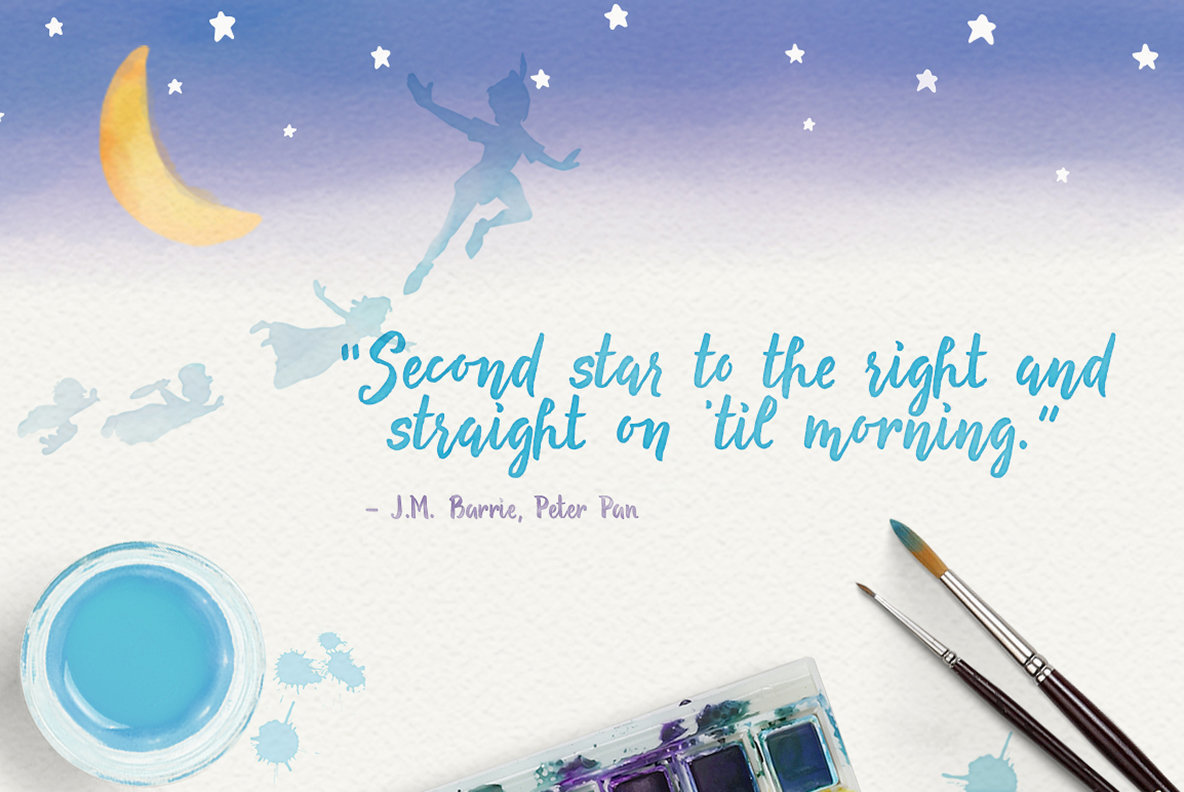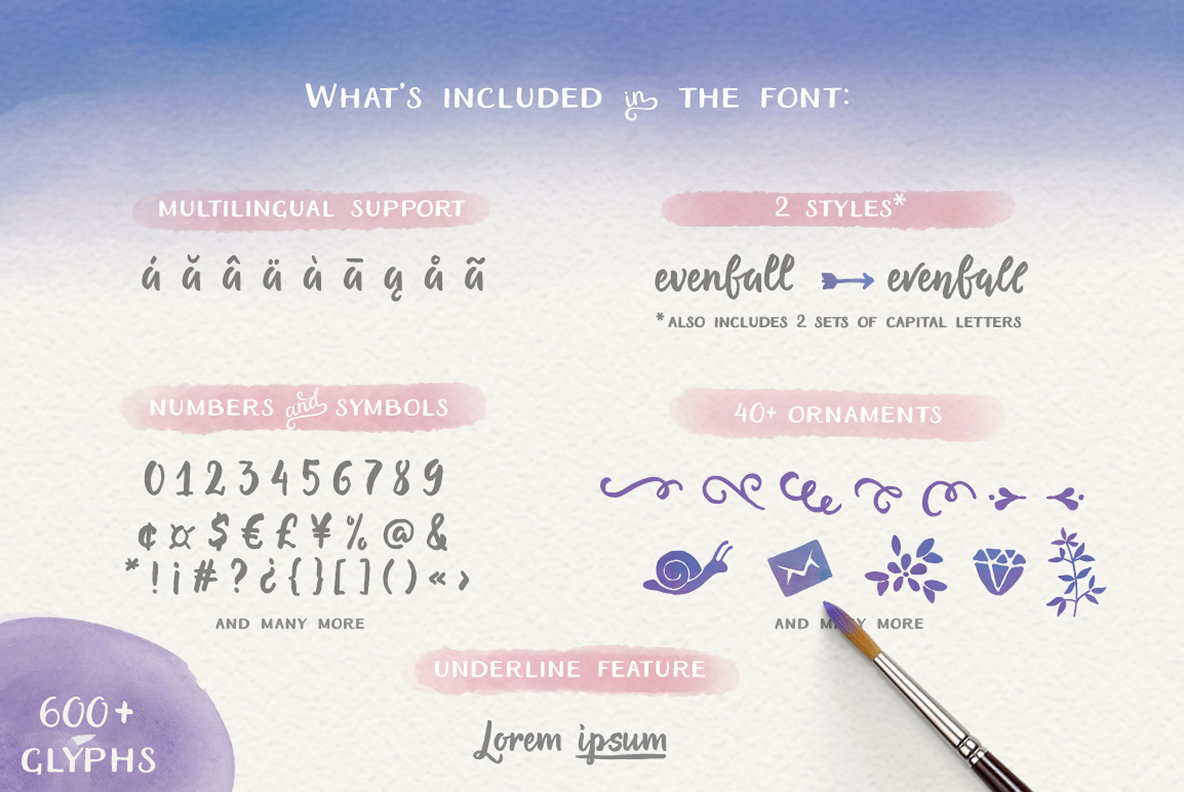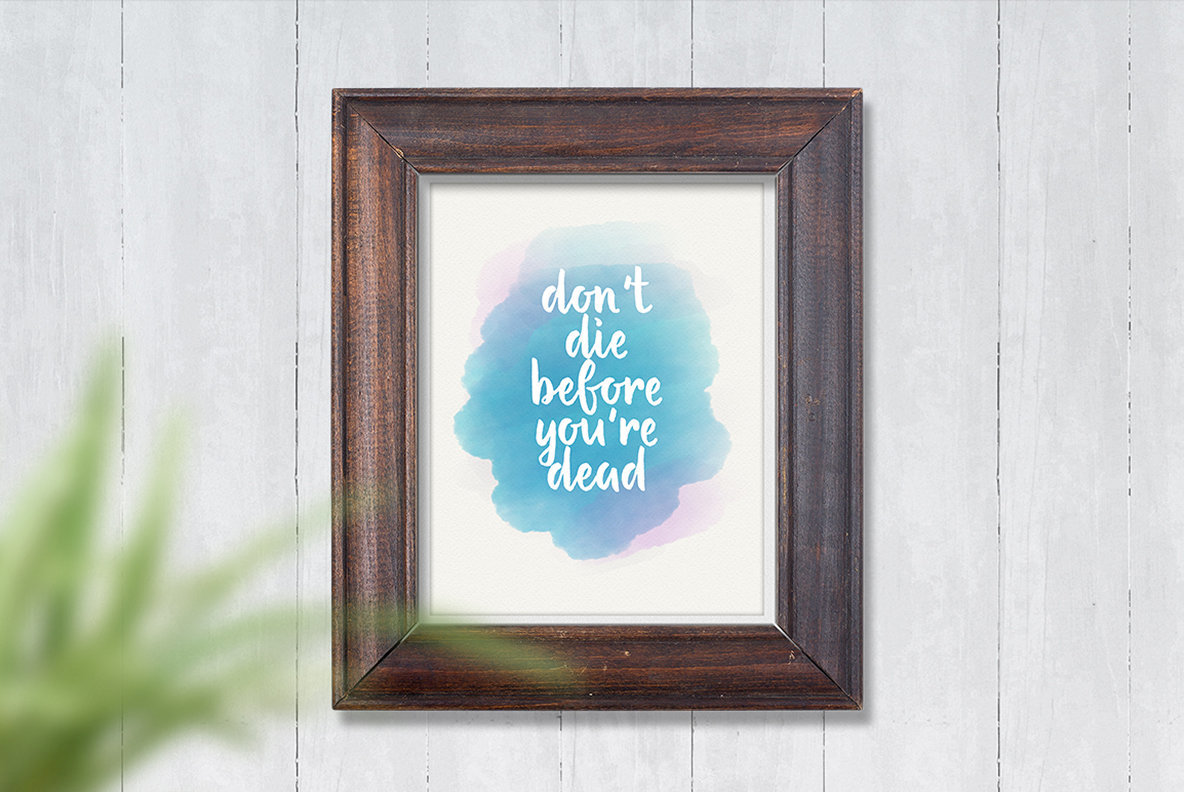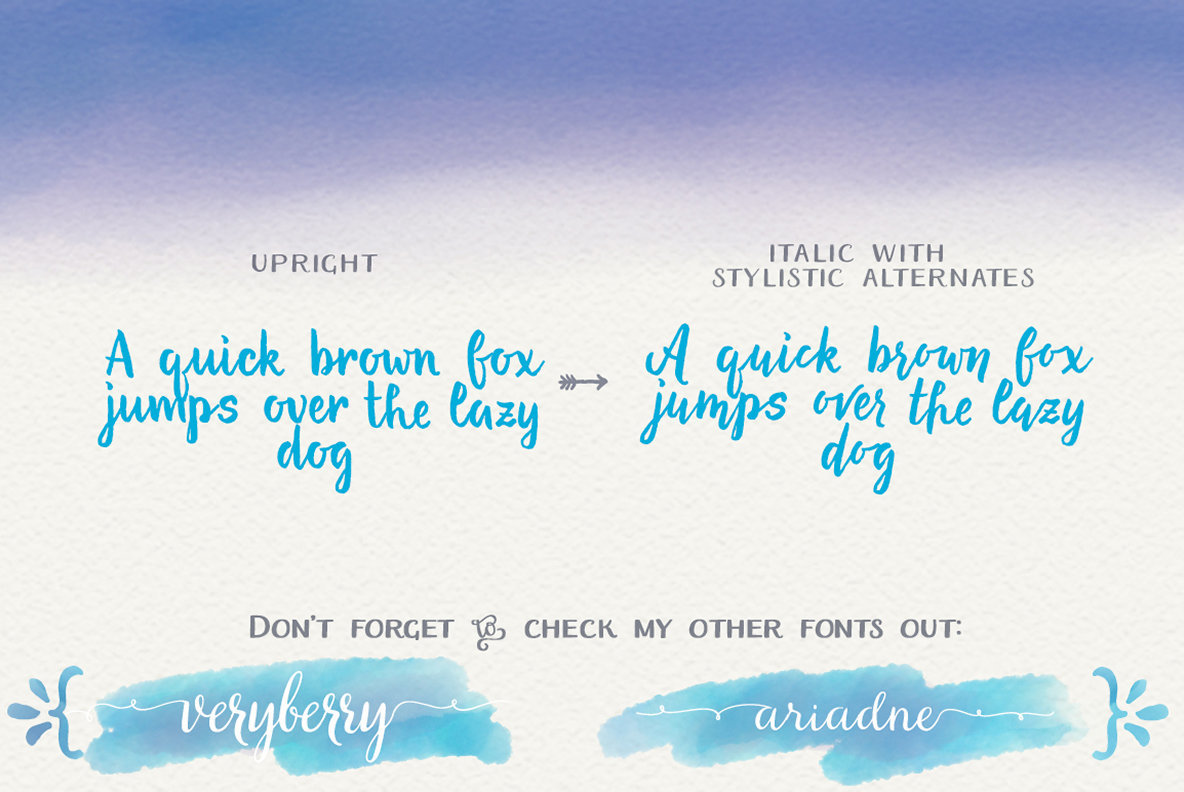
Evenfall Font
Evenfall is a hand written font inspired by modern brush lettering and calligraphy together. Two stylistic sets allow you to create two different text styles.
The font is full of Open Type features and is best used in an open type aware software (such as Adobe Illustrator, Adobe InDesign, Adobe Photoshop, MS Word, MS Publisher). There are more than 700 glyphs in the font including discretionary ligatures, initial and terminal forms for all letters and ligatures, stylistic alternates, ornaments, etc.
Font also contains 40+ ornaments and graphic elements.